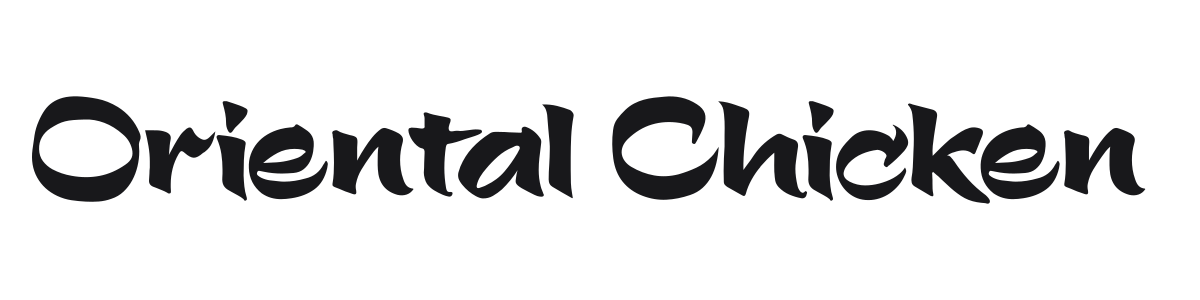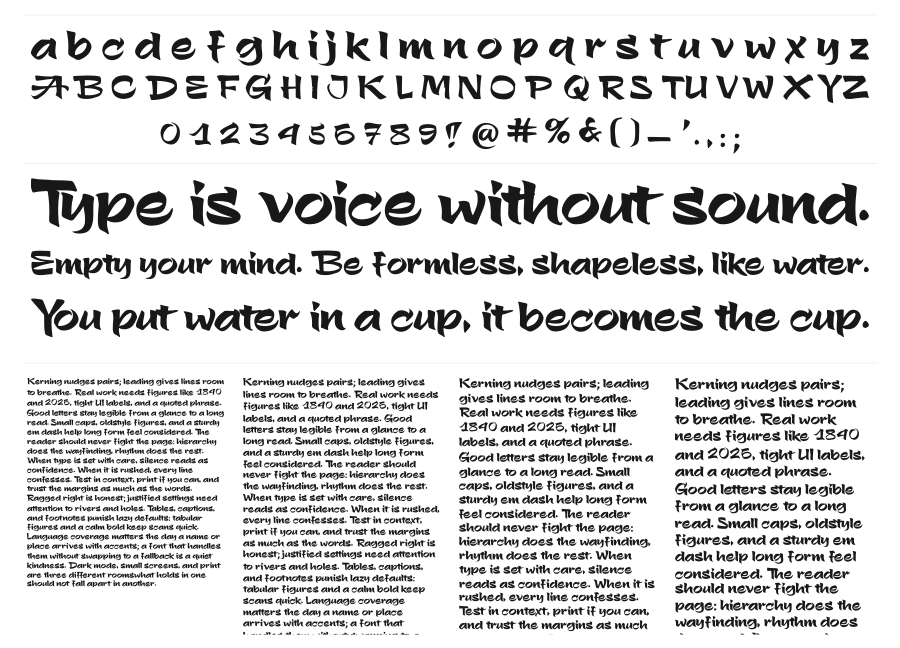
Oriental Chicken
Oriental ChickenFont is a bold brush script that draws heavily from East Asian calligraphic traditions, with sweeping strokes and dramatic weight contrast. The hand-painted quality gives it an energetic, street-level character that works well on packaging, restaurant branding, and poster work. It sits somewhere between a casual Western brush face and a brushed Chinese character aesthetic.